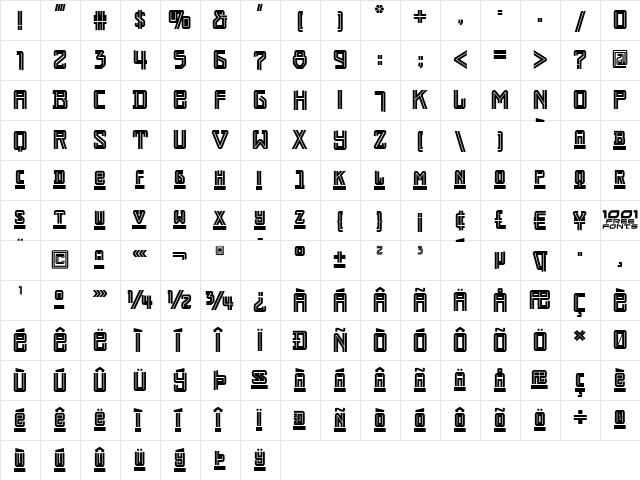
Darmstadt Arts NF Regular
Design Context for Darmstadt Arts NF Typeface
Darmstadt Arts NF is a composed and adaptable typeface that performs quietly and consistently across a wide range of design contexts.